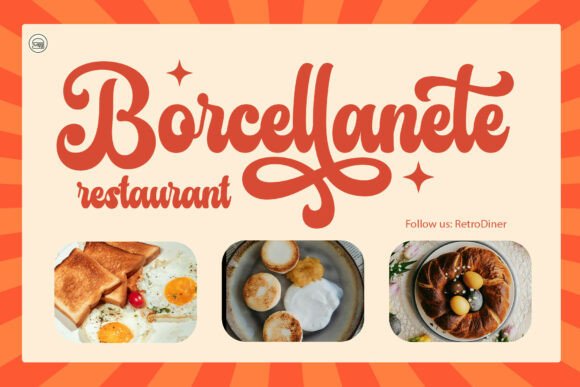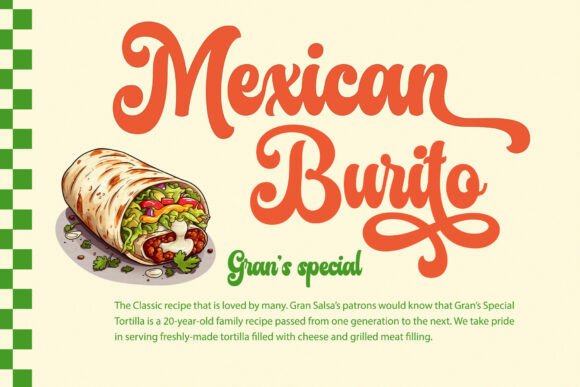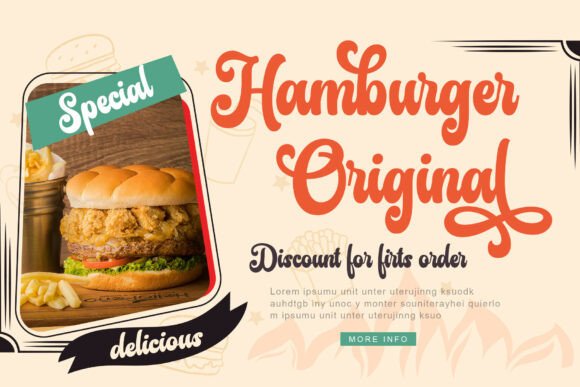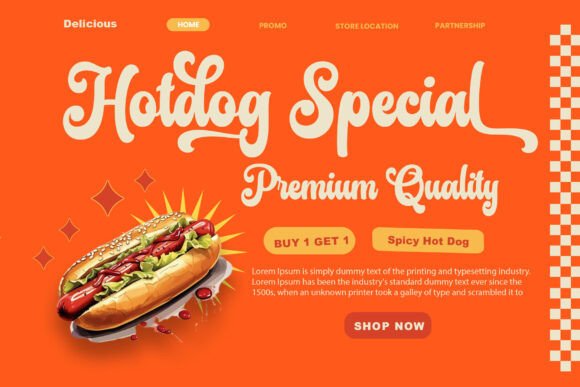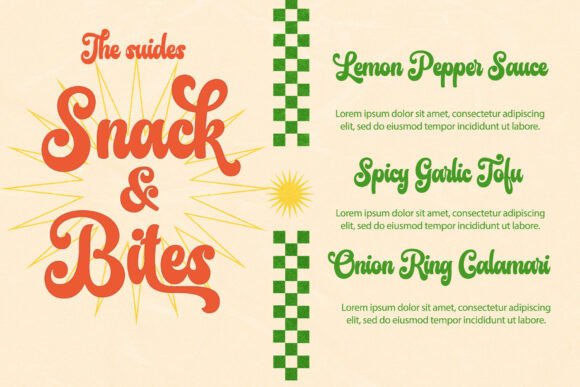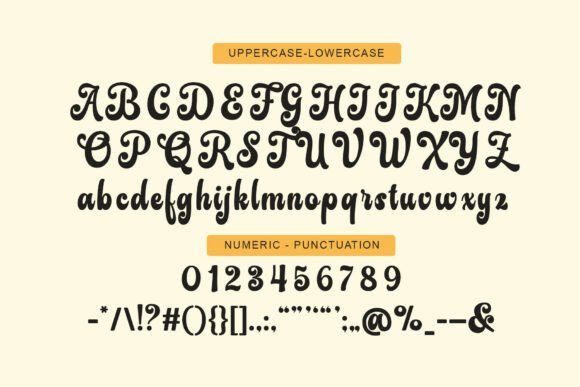
Introducing Farliye Font: A Groovy Retro Charm for Your Design Projects
Are you looking for a font that embodies the vibrant and playful spirit of the 1970s? Look no further than Farliye, a stunning fancy script typeface that exudes a groovy retro charm. With its bold, flowing strokes and expressive curves, Farliye captures the essence of 1970s typography while maintaining a clean, modern finish.
Design Features of Farliye Font
Farliye boasts a range of design features that make it perfect for a variety of design projects. Some of its key features include:
- Generous x-height: The font’s generous x-height creates a clear and readable visual flow, making it perfect for body text and headlines.
- Smooth ligatures: Farliye’s smooth ligatures add a touch of elegance and sophistication to your designs, creating a harmonious visual flow.
- Bold, flowing strokes: The font’s bold, flowing strokes give it a dynamic and playful feel, perfect for capturing the attention of your audience.
- Expressive curves: Farliye’s expressive curves add a touch of whimsy and personality to your designs, making them stand out from the crowd.
Farliye is a versatile font that can be used for a wide range of design projects, including:
- Books and magazines: Farliye’s elegant and readable design makes it perfect for use in books and magazines.
- Logo and branding: The font’s bold and playful design makes it ideal for use in logos and branding materials.
- Photography: Farliye’s expressive curves and smooth ligatures make it perfect for use in photography projects, such as photo captions and quotes.
- Blog headers: The font’s bold and flowing strokes make it perfect for use in blog headers and titles.
- Posters and advertisements: Farliye’s dynamic and playful design makes it perfect for use in posters and advertisements.
- Uppercase and lowercase letters: A full set of uppercase and lowercase letters, perfect for use in a variety of design projects.
- Numerals: A set of numerals that can be used for a variety of design projects.
- Functional stylistic features: A range of functional stylistic features that allow you to customize the font to suit your design needs.
Why Choose Farliye Font?
So why choose Farliye Font for your design projects? Here are just a few reasons:
- Unique and eye-catching design: Farliye’s unique and eye-catching design will help your projects stand out from the crowd.
- Versatile: Farliye is a versatile font that can be used for a wide range of design projects.
- Easy to read: The font’s generous x-height and smooth ligatures make it easy to read, even at small sizes.
Overall, Farliye Font is a stunning fancy script typeface that’s perfect for designers and crafters looking to add a touch of retro charm to their projects. With its bold, flowing strokes and expressive curves, Farliye is sure to capture the attention of your audience and leave a lasting impression.